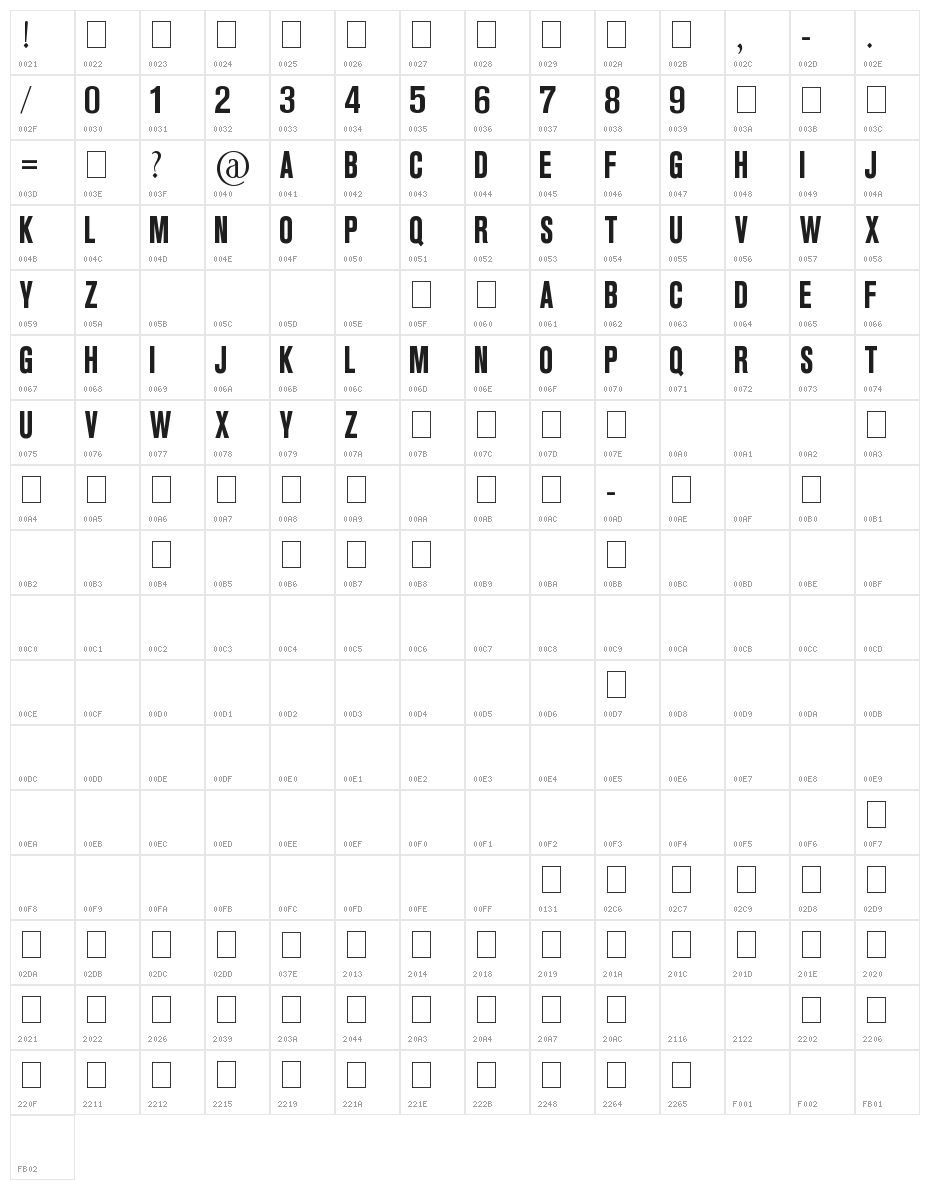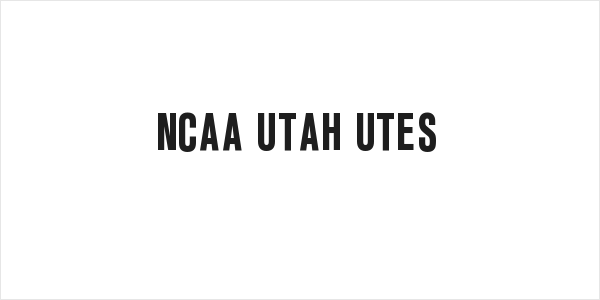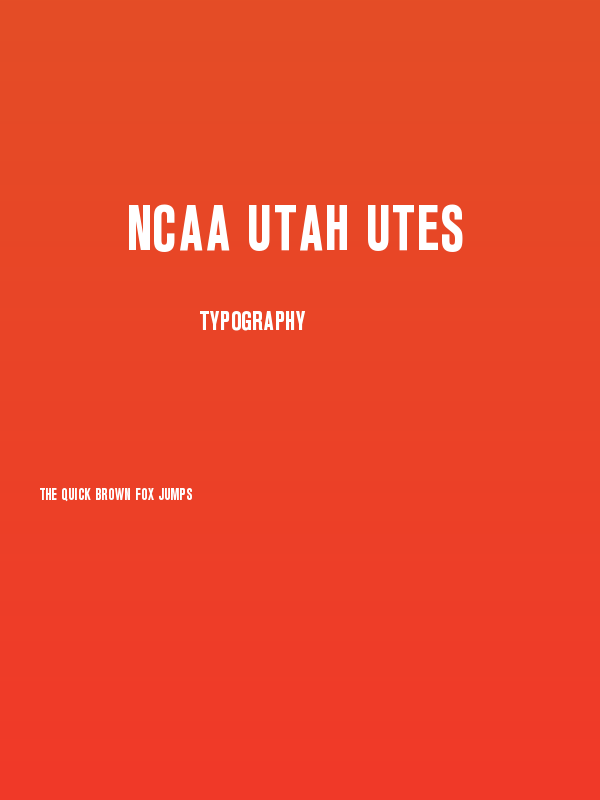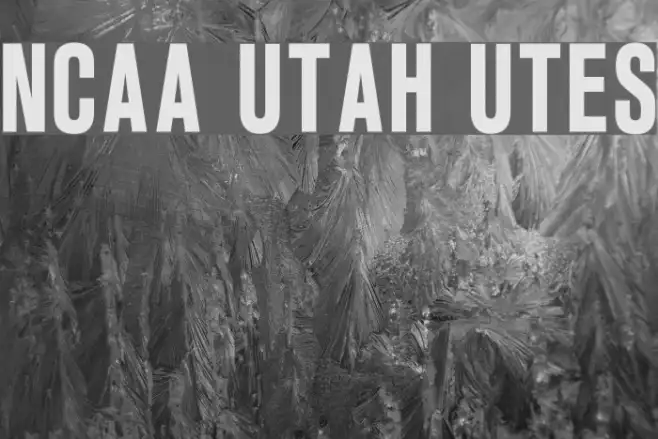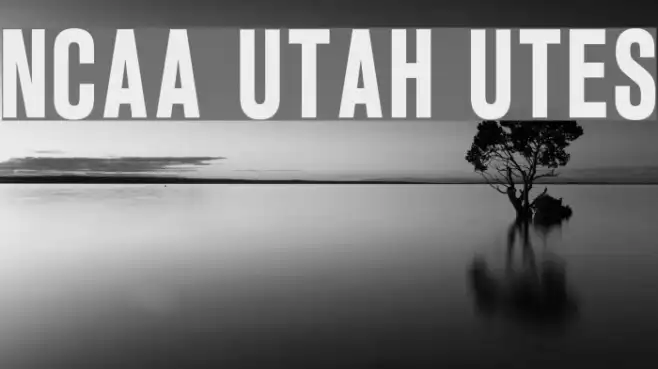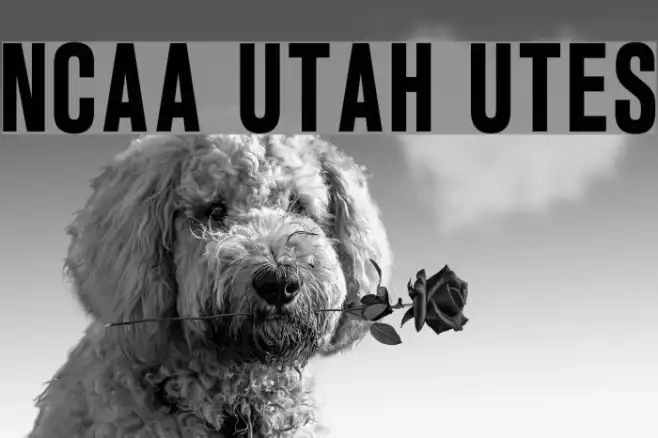
NCAA Utah Utes Font
NCAA Utah Utes Description
This font features a bold and impactful design, characterized by its strong, thick strokes and uniform line weights. The letters are sans-serif, giving them a modern and clean appearance. The uppercase and lowercase letters maintain a consistent height, contributing to a cohesive and structured look. The numbers are equally bold, ensuring readability and emphasis. The font's overall style is assertive and commanding, making it suitable for attention-grabbing headlines or branding materials. The character spacing is tight, which enhances the compact and powerful feel of the text.
| Proposed Projects | Ideal for sports branding, posters, headlines, and any project requiring a strong visual impact. |